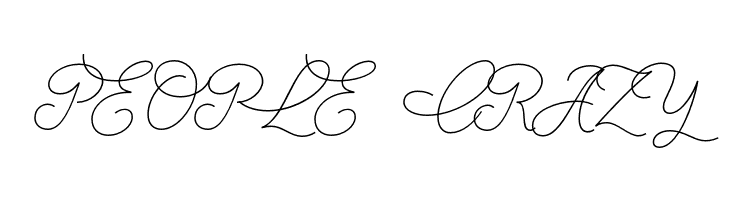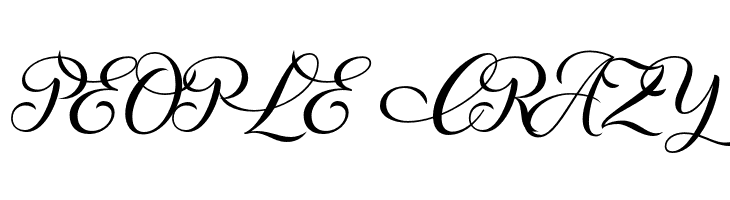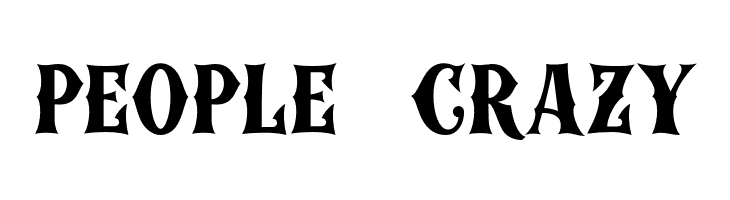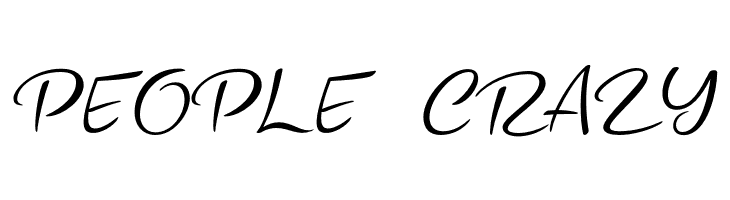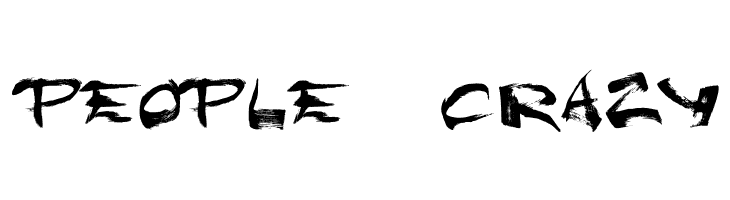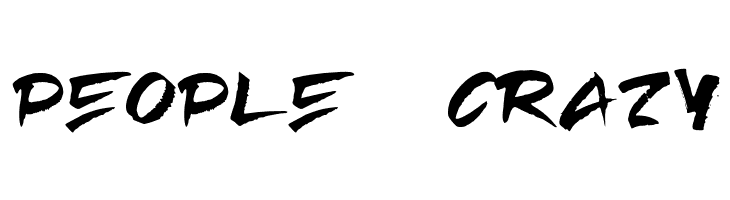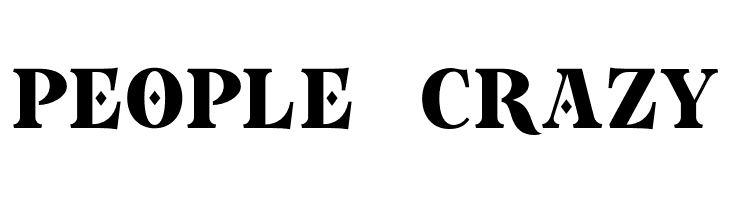
A bold, brushstroke-style font with a dynamic and distressed appearance.
A lively, flowing script font with elegant curves and a handwritten feel.
A bold, high-contrast serif font with distinctive decorative elements.
An elegant calligraphy font with flowing strokes and decorative flourishes.
A bold, gothic-inspired font with sharp serifs and dramatic flair.